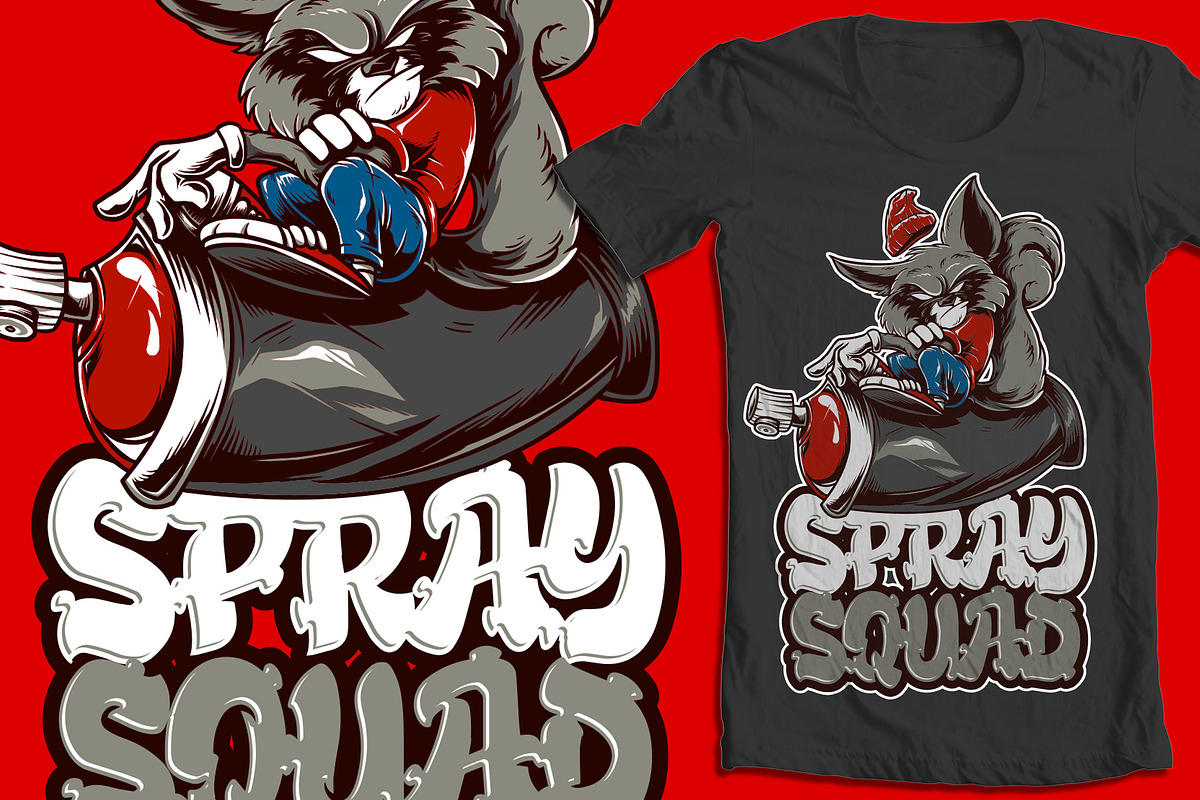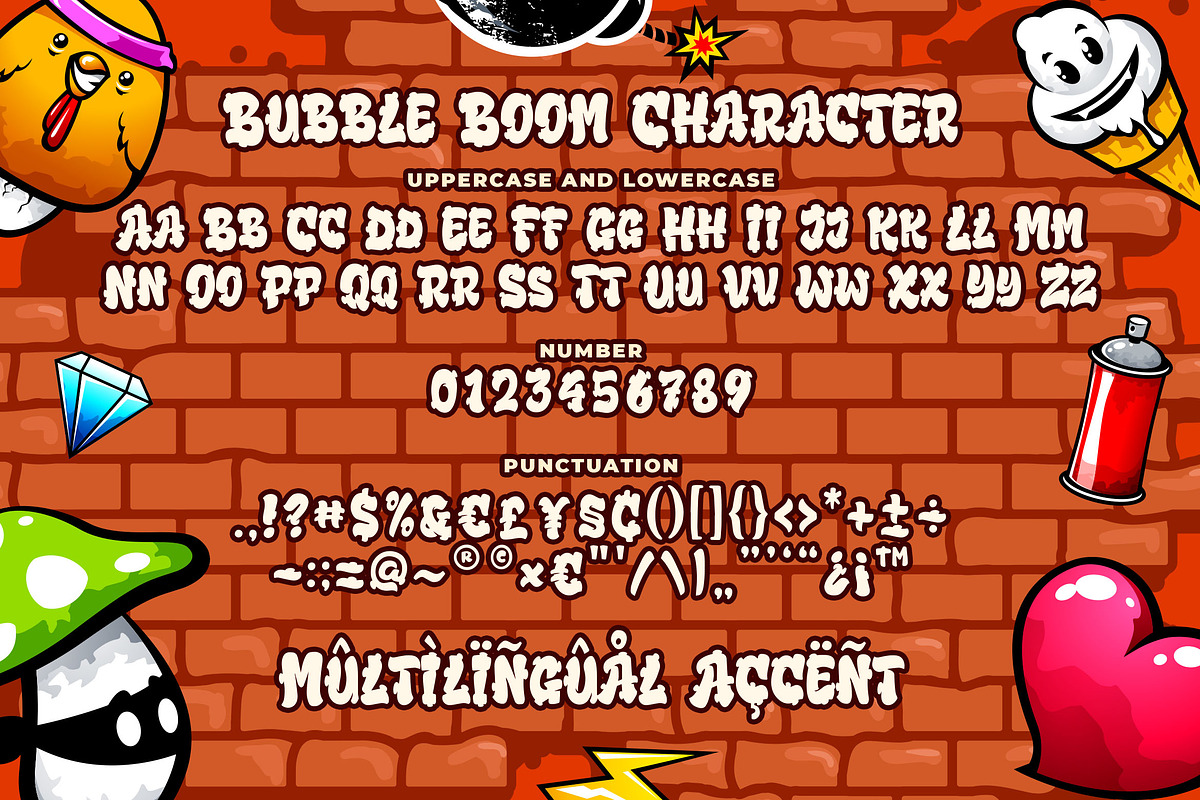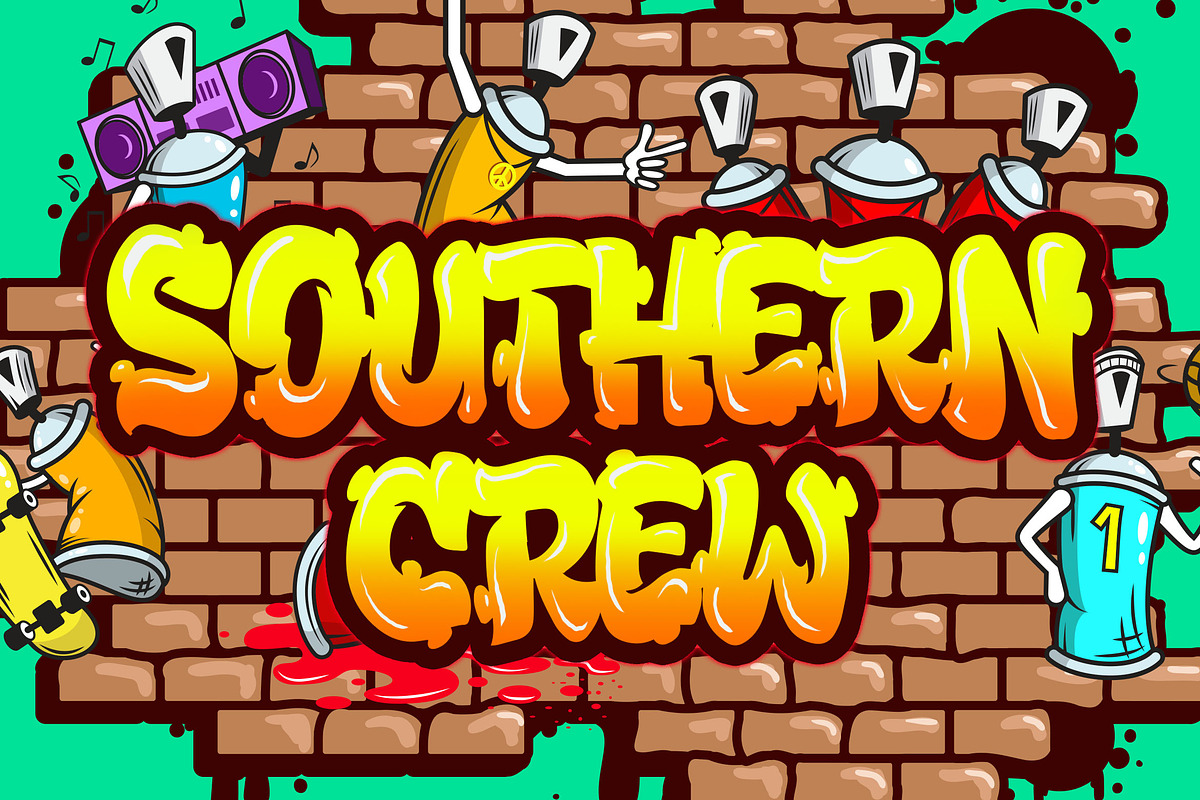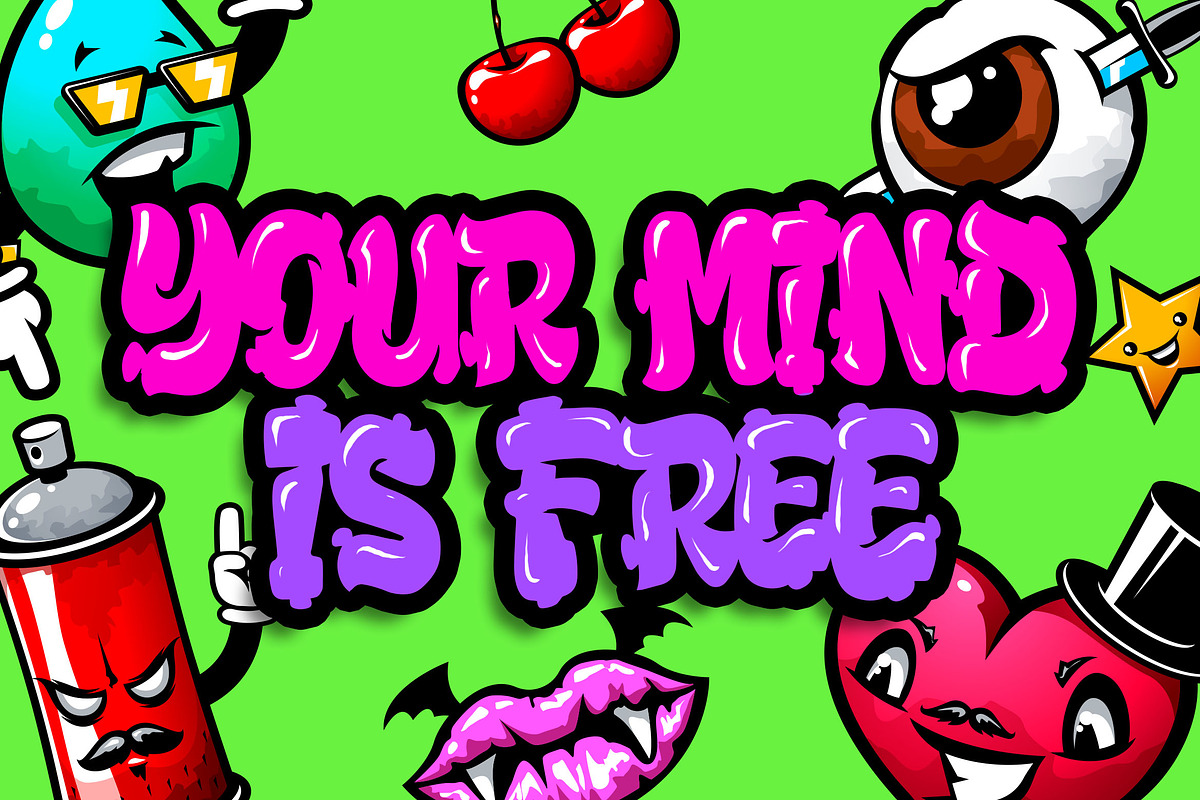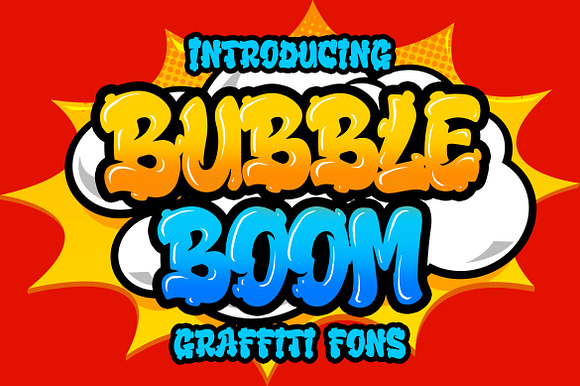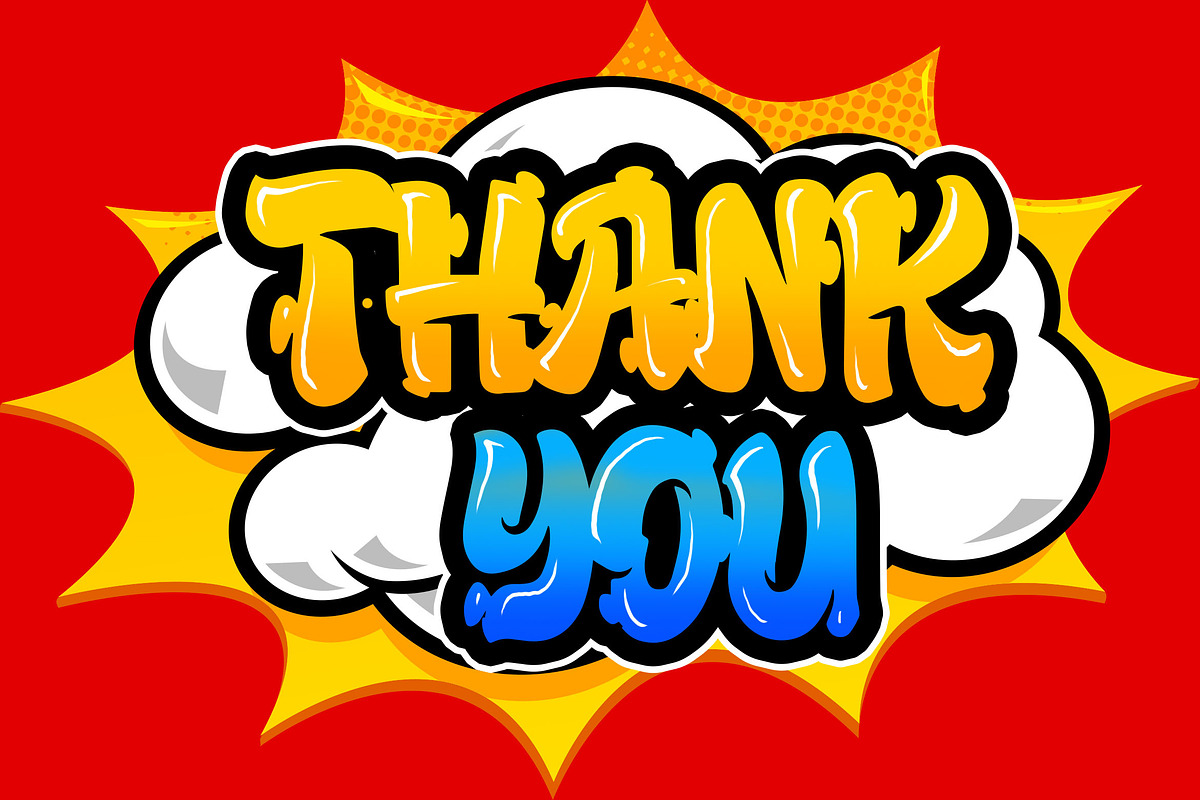
Bubble Boom - Graffiti Font
Introducing of our new product the name is Bubble Boom Graffiti Font. Bubble Boom inspired by graffiti style with a fun theme very good for graffity poster, Hip Hop music, kids poster, flyer, childrenbook, cartoon, comic etc
MULTILINGUAL ACCENT :
ŽžŠŒšŸÀÁÂÃÄÅÆÇÈÉÊËÌÍÎÏÐÑÒÓÔÕÖØÙÚÛÜÝßàáâãäåæçèéêëìíîïñòóôõöøùúûüýÿ